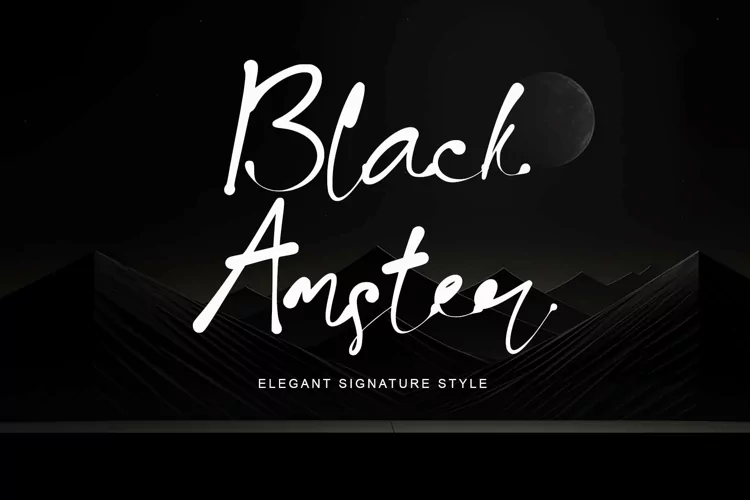
"Black Amster" is an elegant signature font. This font is equipped with uppercase, lowercase, numerals, punctuation, and multilingual support. It is very suitable for certificates, weddings, invitations, engagements, logos, stickers, banners, branding, Valentine, spring, summer, and others.